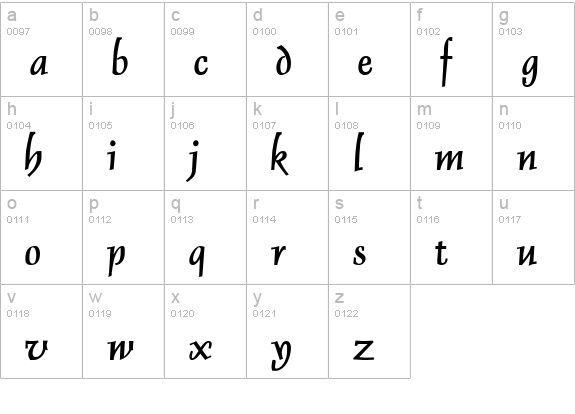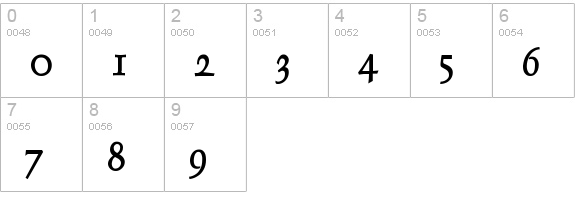
Dolphin Bold is a strong, high-contrast variant in the Dolphin typeface family \xE2\x80\x94 well suited to headlines, attention-grabbing titles, and strong calls-to-action.
Introducing Dolphin Bold font, a striking and versatile typeface that exudes elegance and sophistication. With its bold and smooth curves, this font is perfect for making a statement in your designs. Whether you're creating a logo, poster, or branding materials, Dolphin Bold will surely catch the eye of your audience. What's even better is that Dolphin Bold font is available for free download at FontsMarket.com. This means you can elevate your projects with this stunning font without breaking the bank. Don't miss out on the opportunity to add Dolphin Bold to your font collection and take your designs to the next level. Download it now and let your creativity soar!